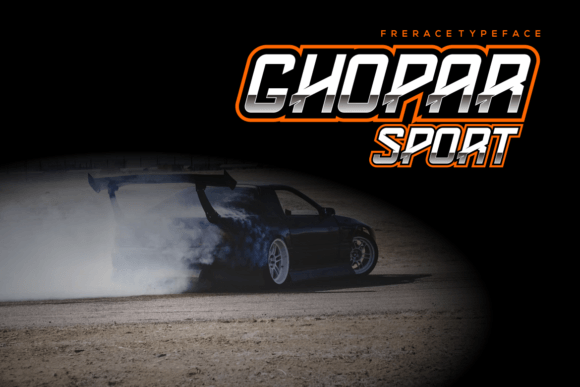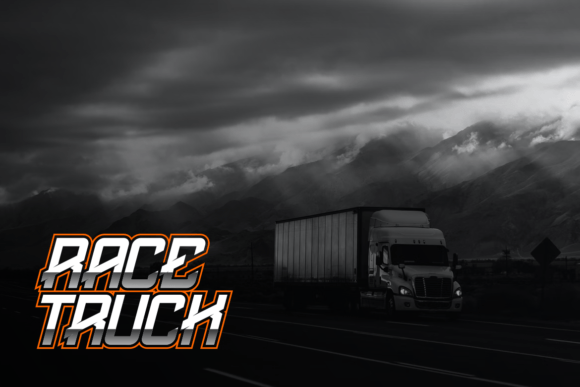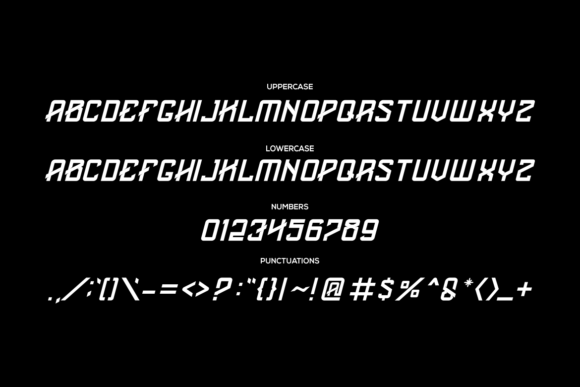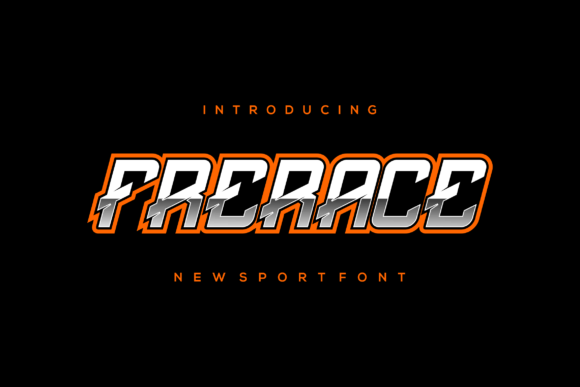
Introduction to Frerace Font
Frerace is a cool and modern display font.
Frerace Font offers exceptional quality and versatility, making it a valuable addition to your design toolkit. Whether you’re creating for personal projects or commercial use, Frerace Font delivers professional results.